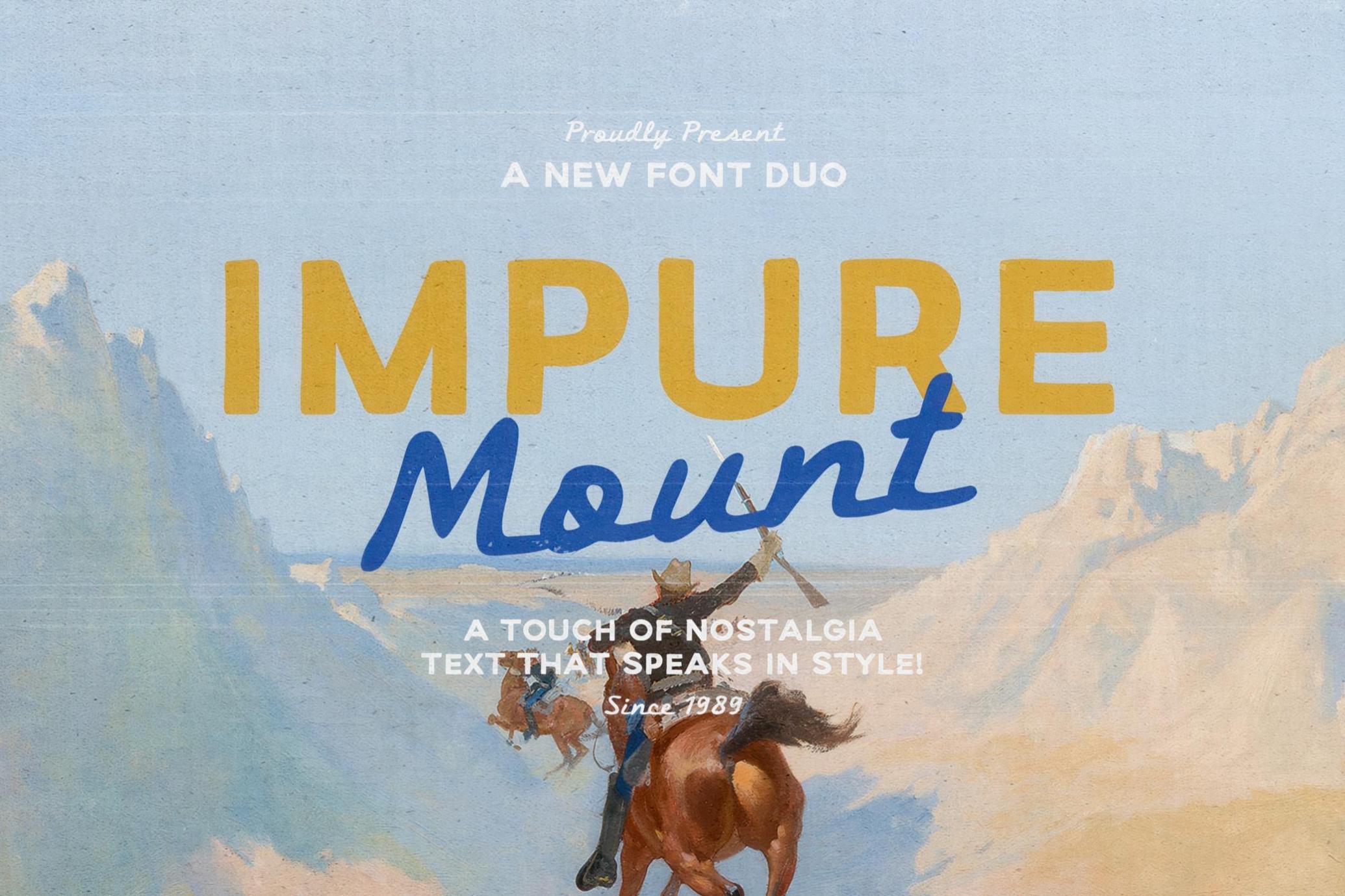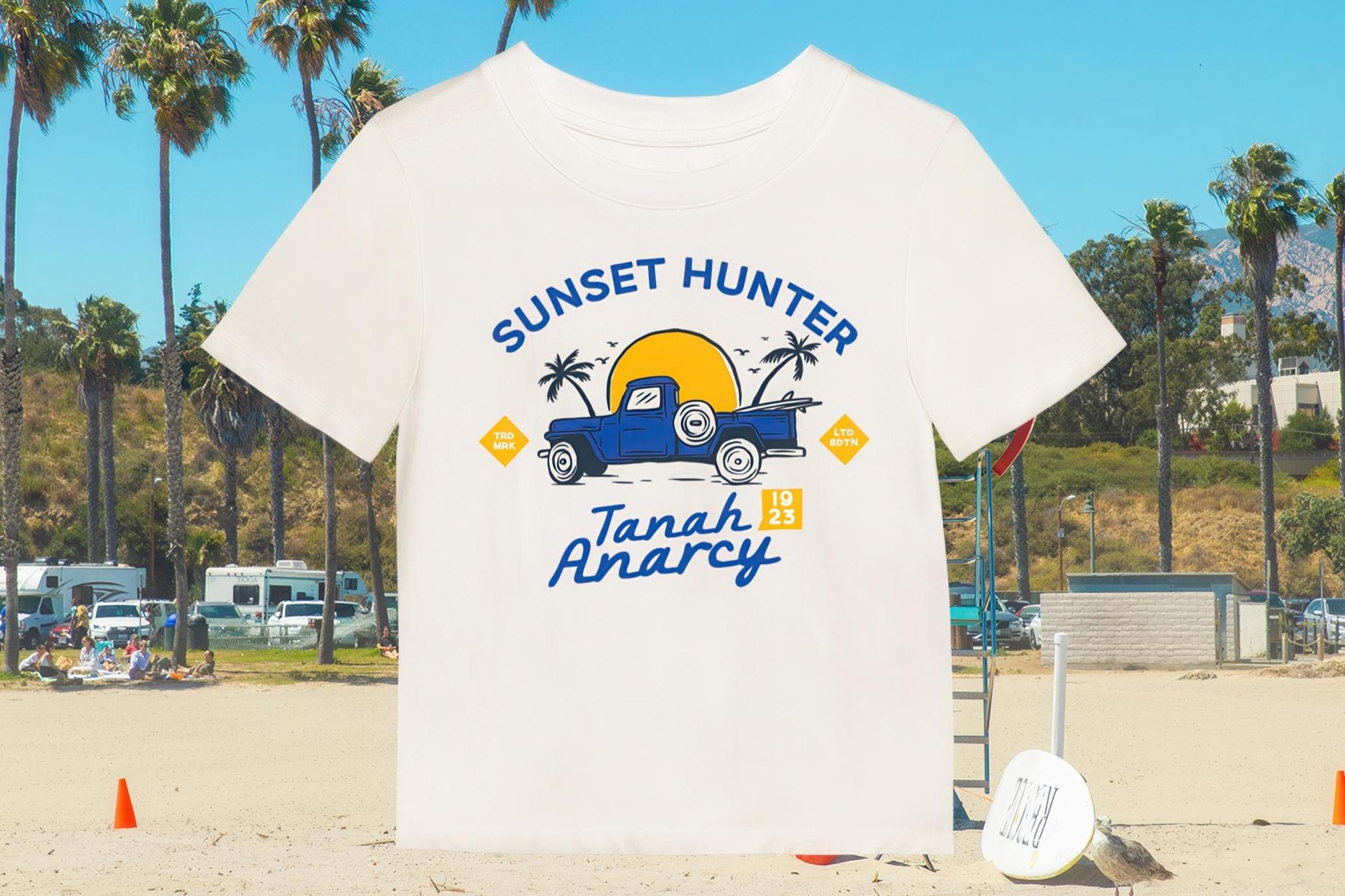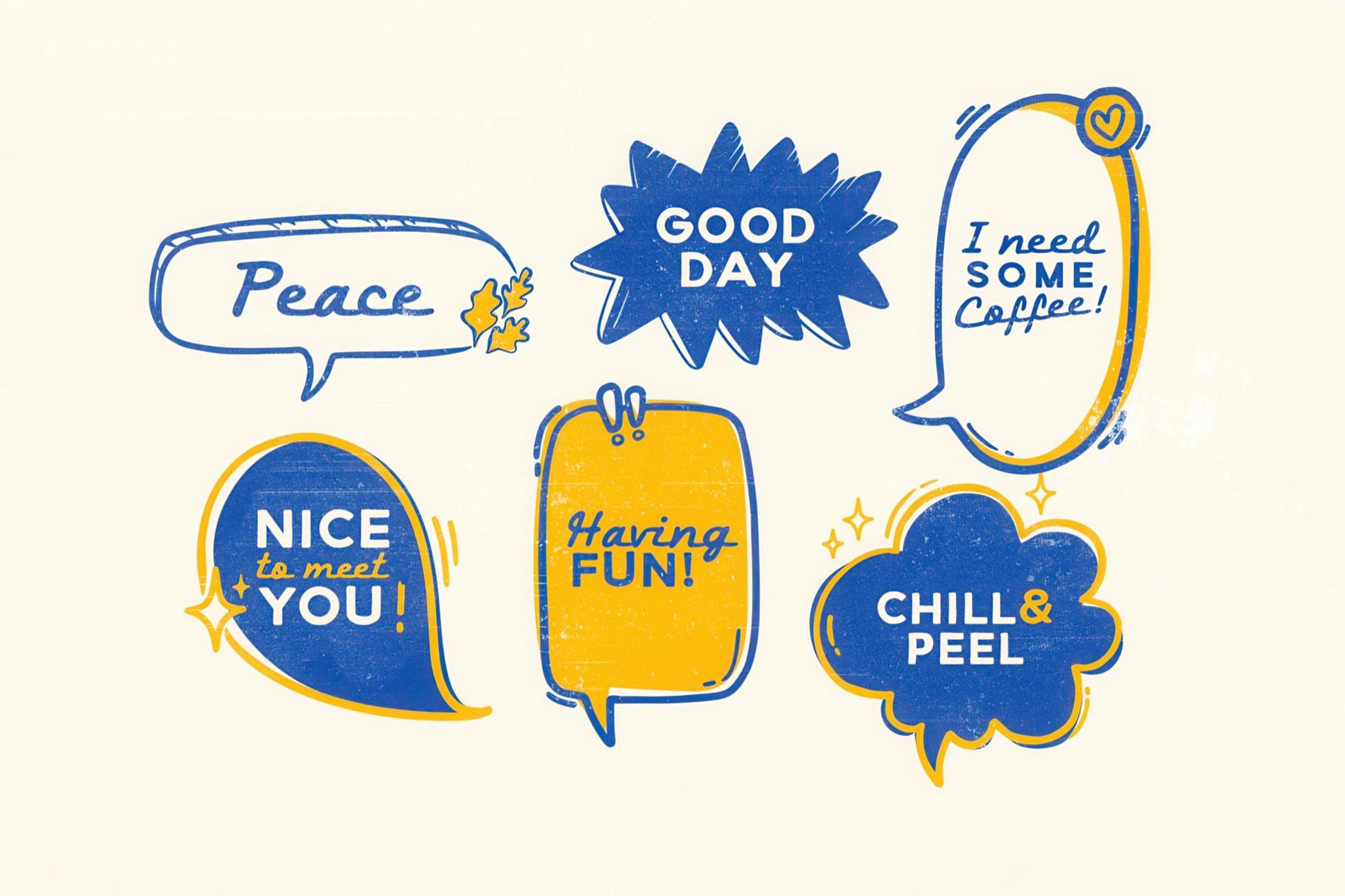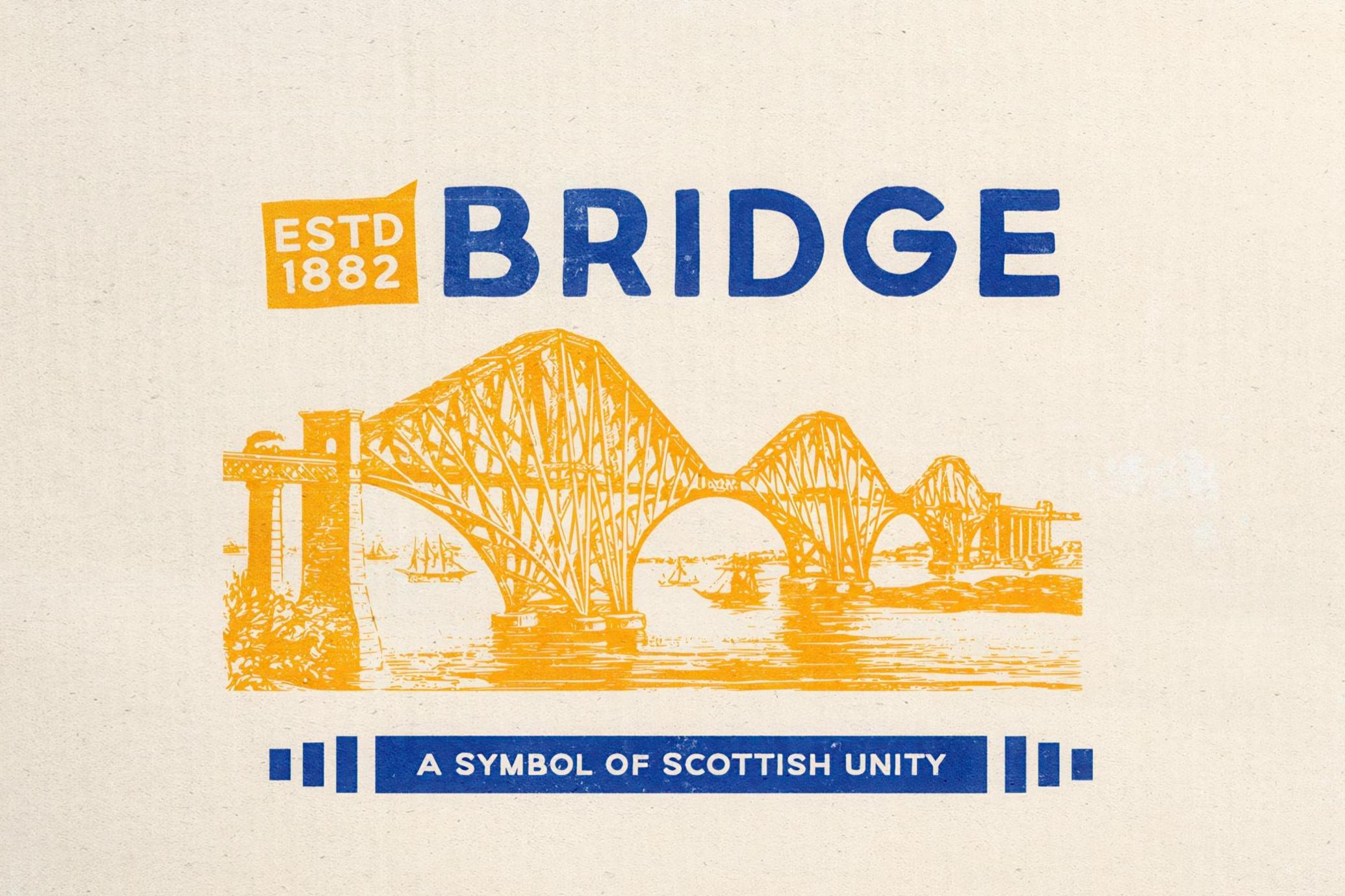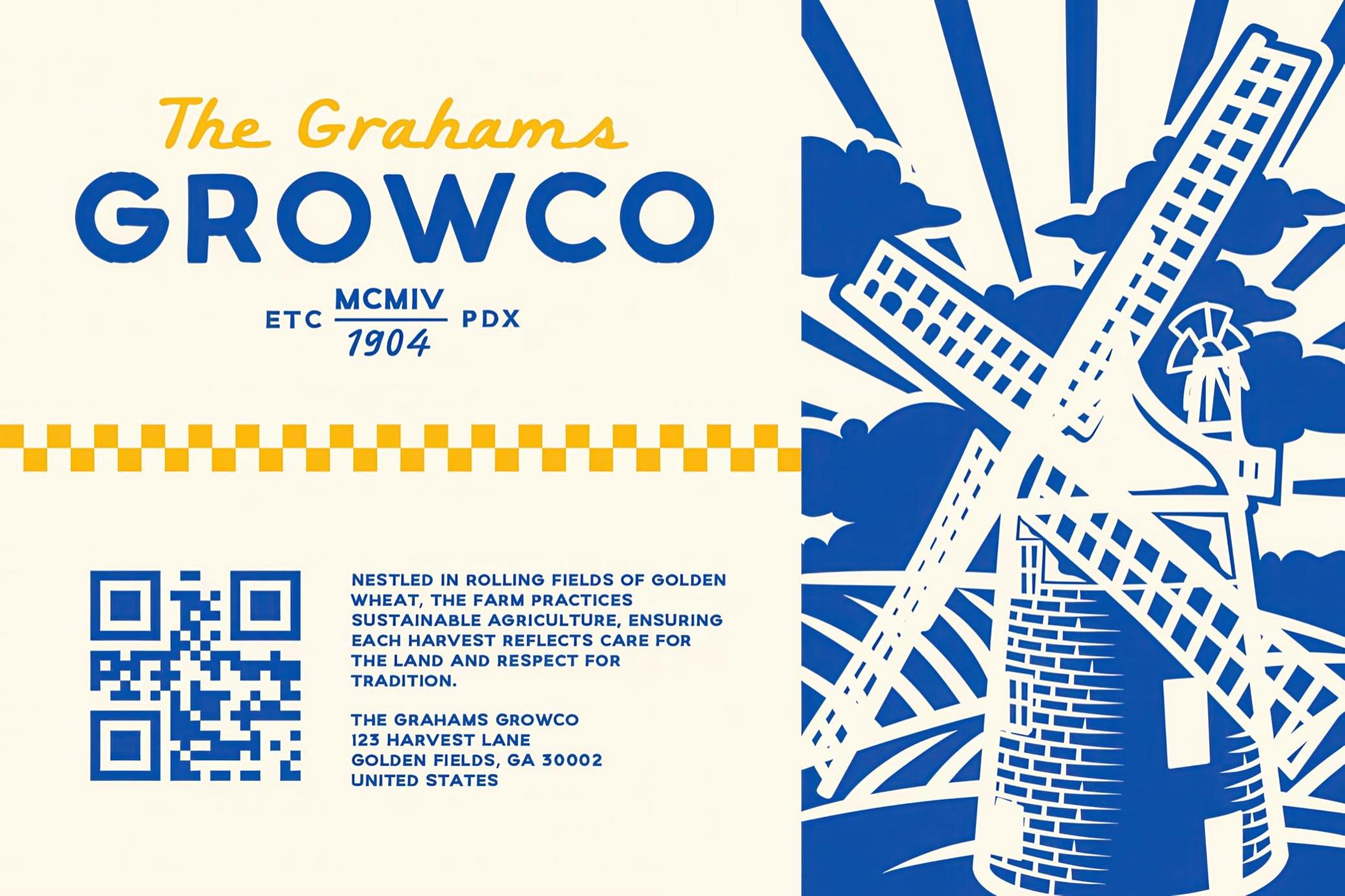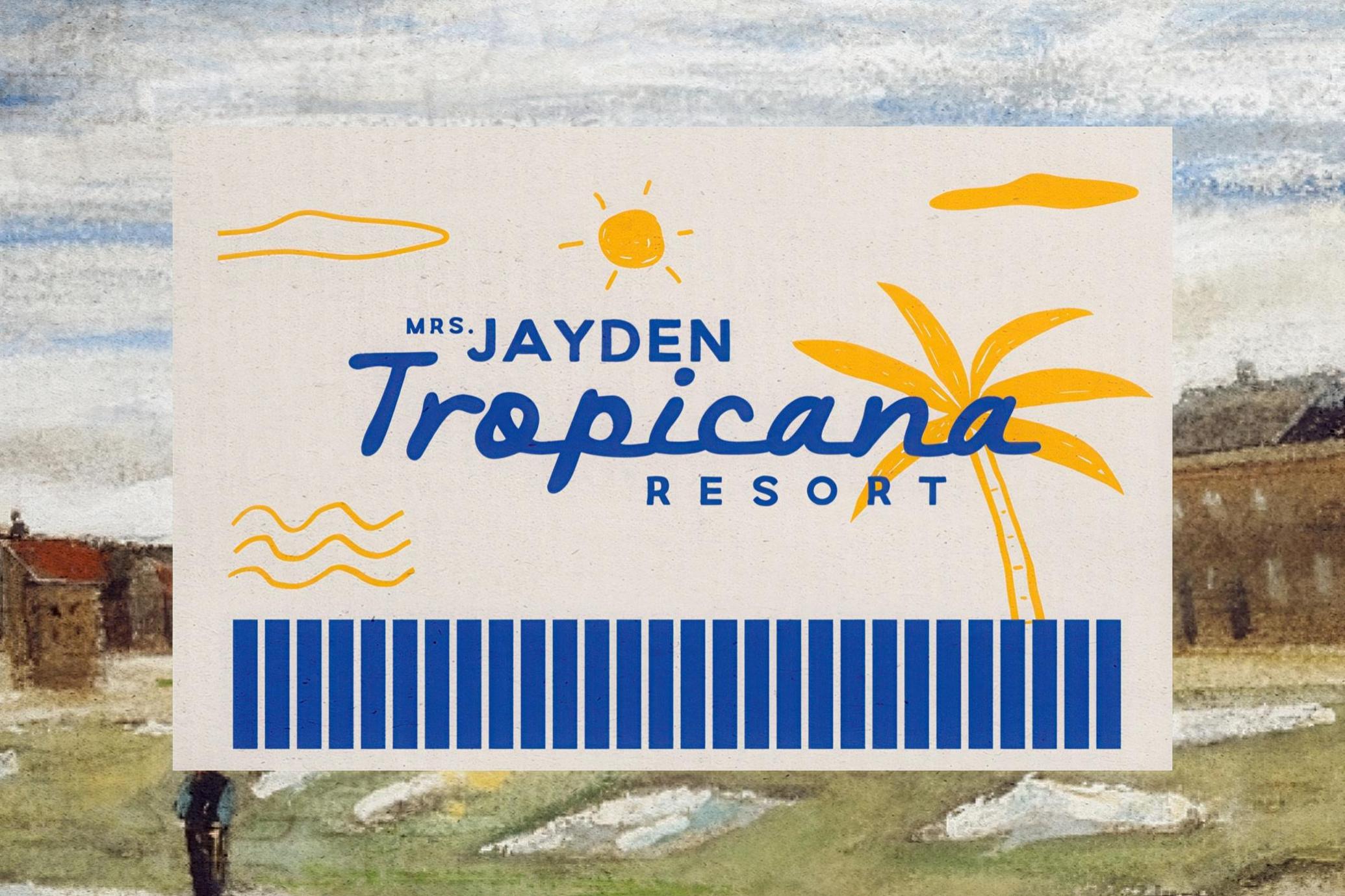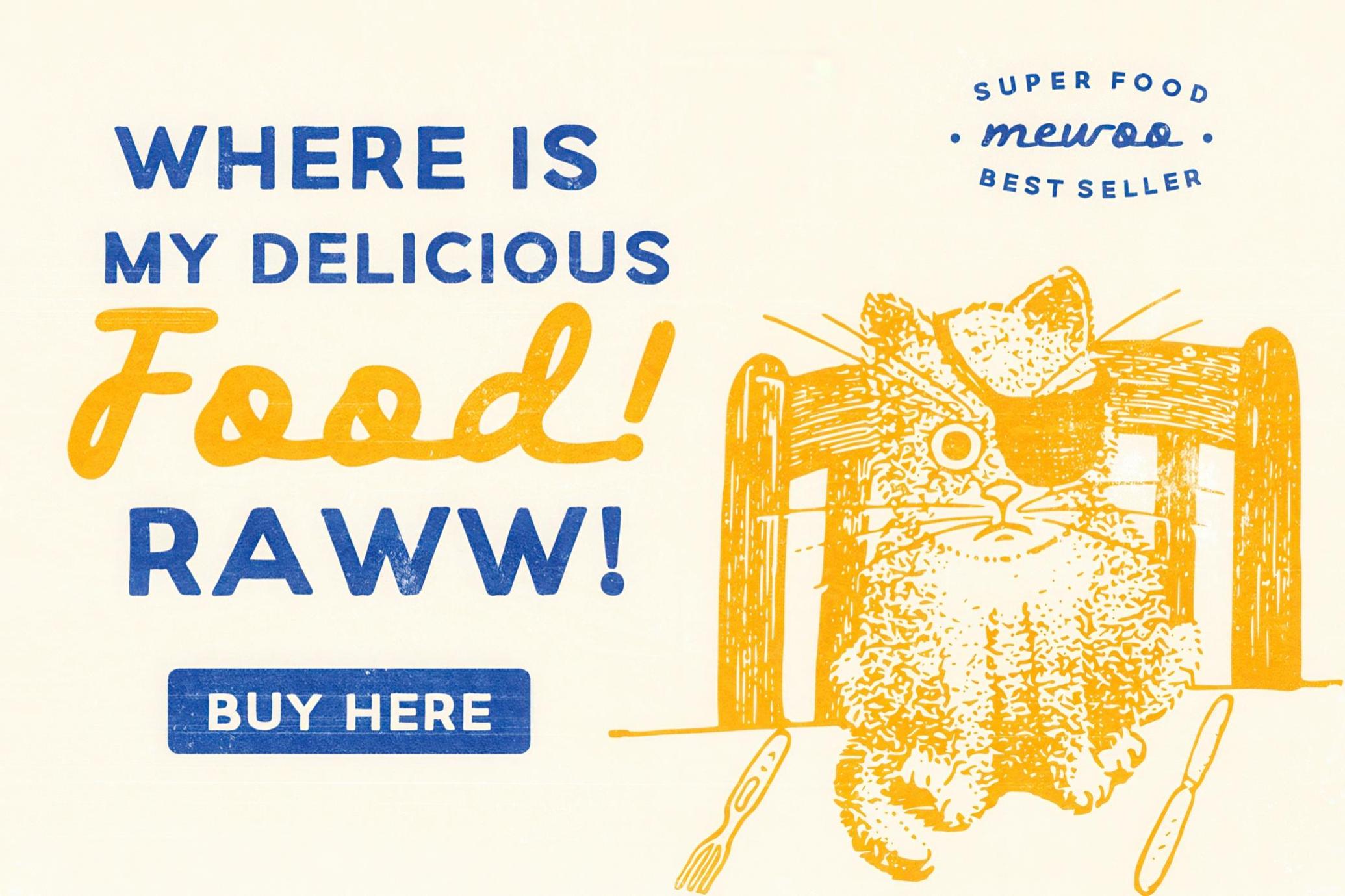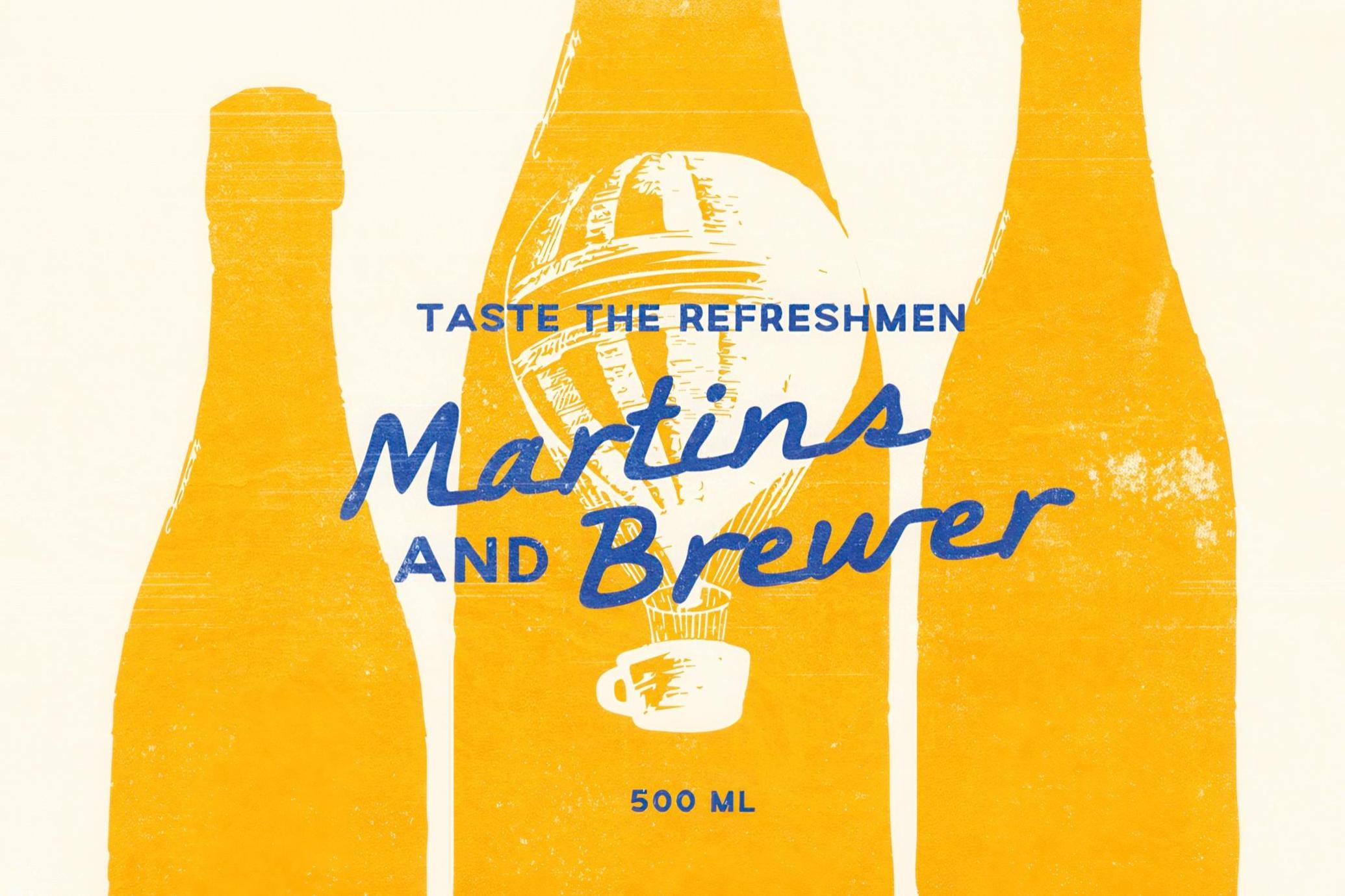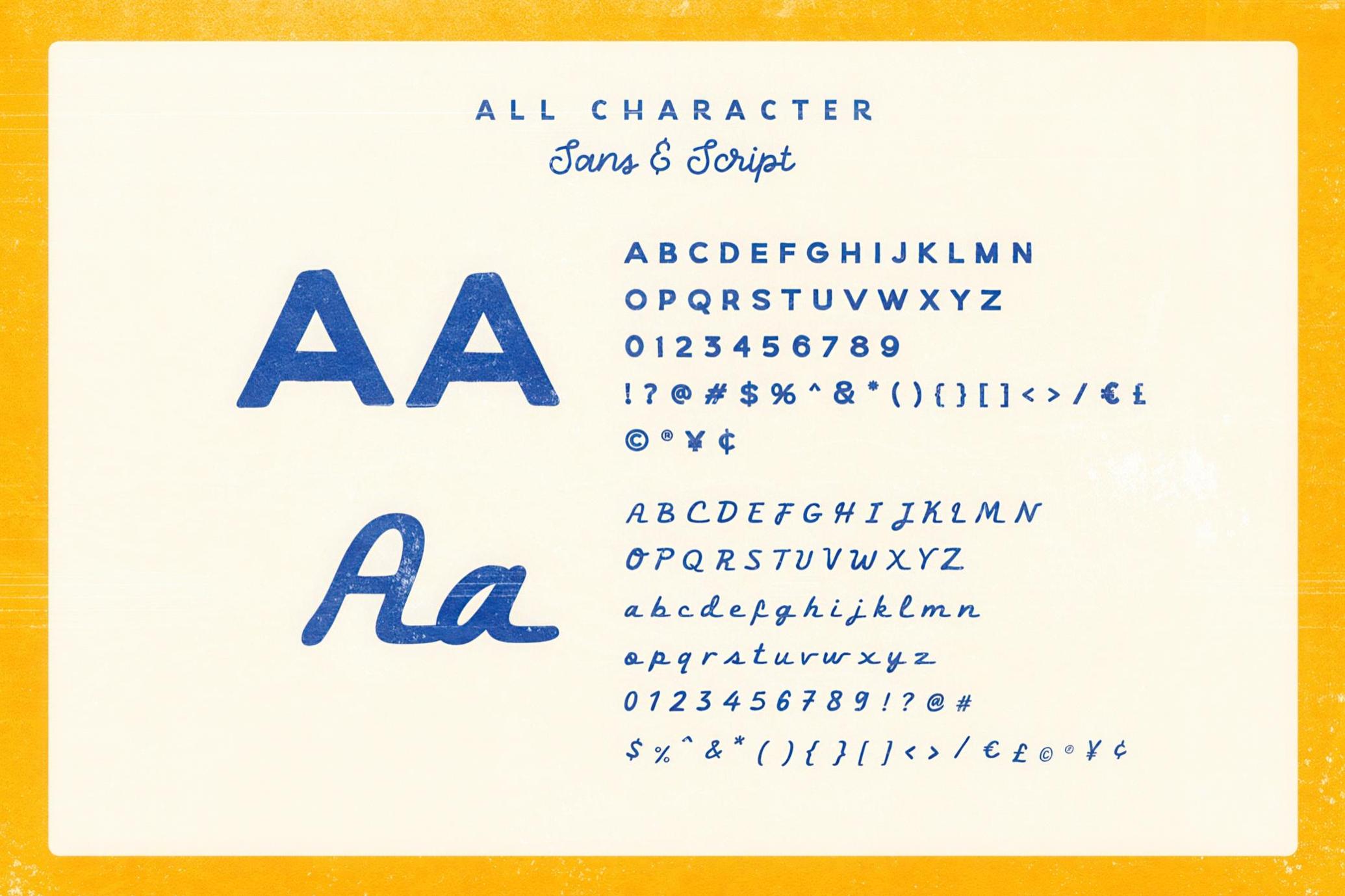
Impure Mount — Nostalgic Font Duo
Impure Mount is a love letter to the golden age of cinema — when cowboys still rode across matte-painted deserts and movie posters wore their brushstrokes like scars. This hand-drawn font duo carries the early Hollywood charm. The sans is sturdy and understated, like a marquee’s bold lettering; the script is sweeping and full of character, echoing title cards from a silent film reel. Together, they hum with a grainy, sun-faded warmth that takes you back without trying too hard.
It’s a typeface built for stories. Whether you’re branding an indie film, crafting book covers, or chasing the romance of a bygone era, Impure Mount brings the texture of memory to every letter. There’s multilingual support, but the real language here is nostalgia.